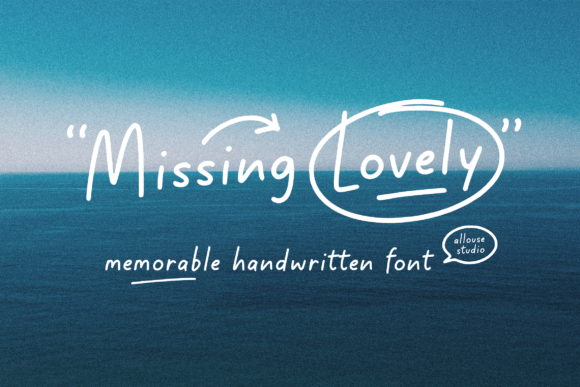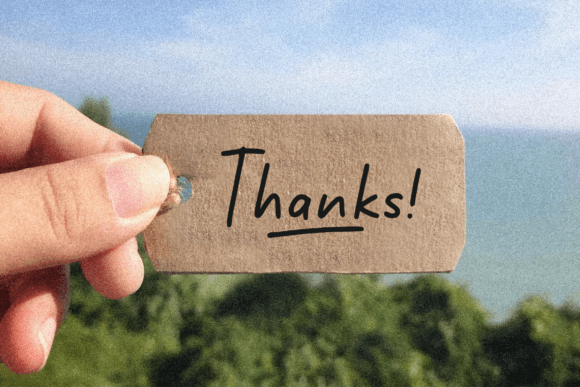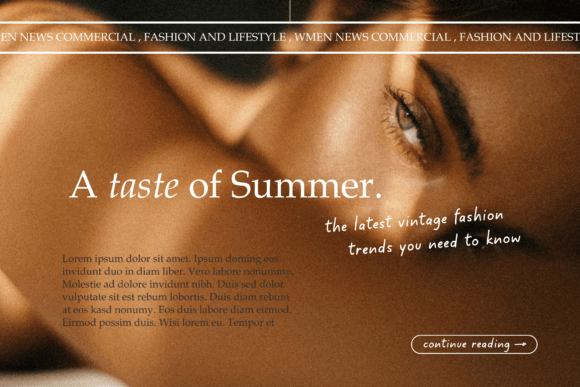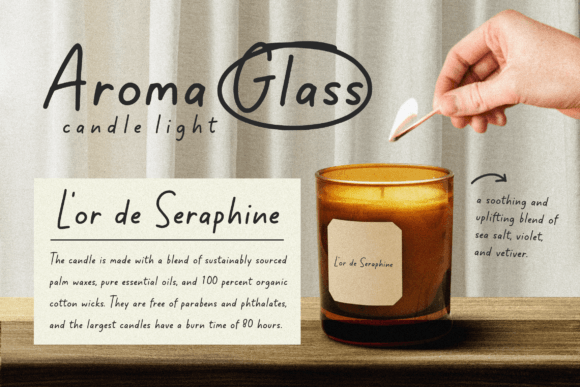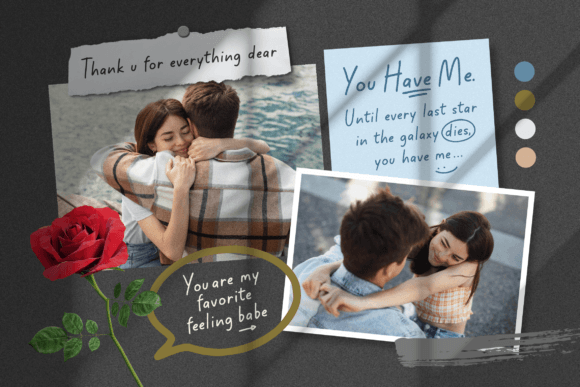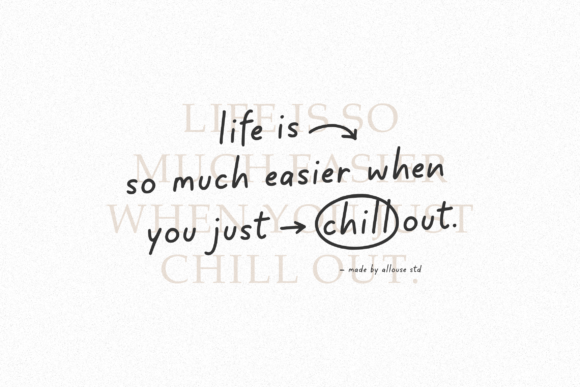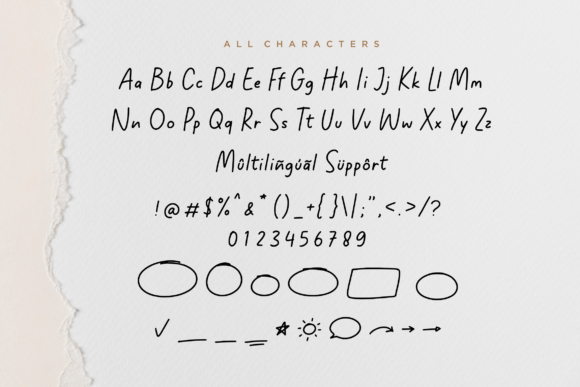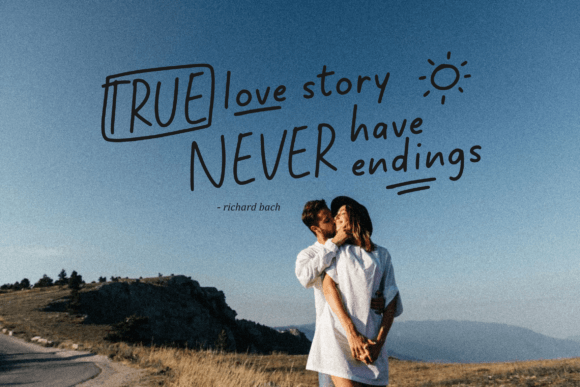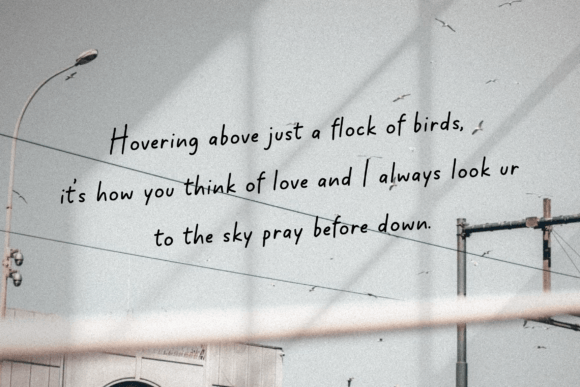
Missing Lovely Font
What Is Missing Lovely Font?
Missing Lovely Font is a delicate and friendly handwritten script designed to add warmth and elegance to any project. Each letter features smooth curves and balanced proportions that feel graceful yet approachable. Because of its clean details, this font looks both modern and timeless.
You will see how easily Missing Lovely adapts to all kinds of design styles, from casual to sophisticated.
Missing Lovely is a versatile font you can use in many different situations. For example, it’s ideal for wedding invitations, save-the-date cards, and event stationery. The flowing script immediately adds romance and charm.
In addition, it works beautifully for logos and branding materials. If you want your business to look polished and memorable, Missing Lovely helps you make a strong impression.
You can also use it for product packaging, labels, and handmade goods. Even the simplest design feels premium and special with this elegant handwritten touch.
When you design social media graphics or blog headers, Missing Lovely brings a warm and professional tone that captures attention. Even basic quotes or announcements look more engaging.
Moreover, this font is perfect for greeting cards, book covers, and posters. Your designs will feel cohesive, thoughtful, and beautifully finished.
Why Should You Choose Missing Lovely Font?
There are many reasons to consider Missing Lovely for your next project. First, it’s easy to read at all sizes. Even small text remains clean and legible.
Also, this font pairs nicely with both serif and sans-serif typefaces. This helps you create balanced layouts that feel fresh and modern.
Because it is fully PUA encoded, you can access all glyphs and special characters without extra tools. Customizing your text becomes fast and effortless.
Designers appreciate that it looks polished right out of the box, saving time while delivering beautiful results.
Missing Lovely Font adds a sense of sophistication and personality to every project. For example, when you want your work to feel refined and welcoming, this font makes it simple to achieve that look.
Even minimalist layouts look more engaging with Missing Lovely’s smooth, flowing strokes. Whether you create invitations, logos, or social media content, your designs will stand out.
Using a premium handwritten script also shows your attention to detail and commitment to quality. This builds trust with your audience and makes your work more memorable.
Missing Lovely Font is more than just a typeface—it’s a creative tool that helps you share ideas with clarity and elegance. From weddings and branding to packaging and digital designs, this font adapts easily and leaves a lasting impression.